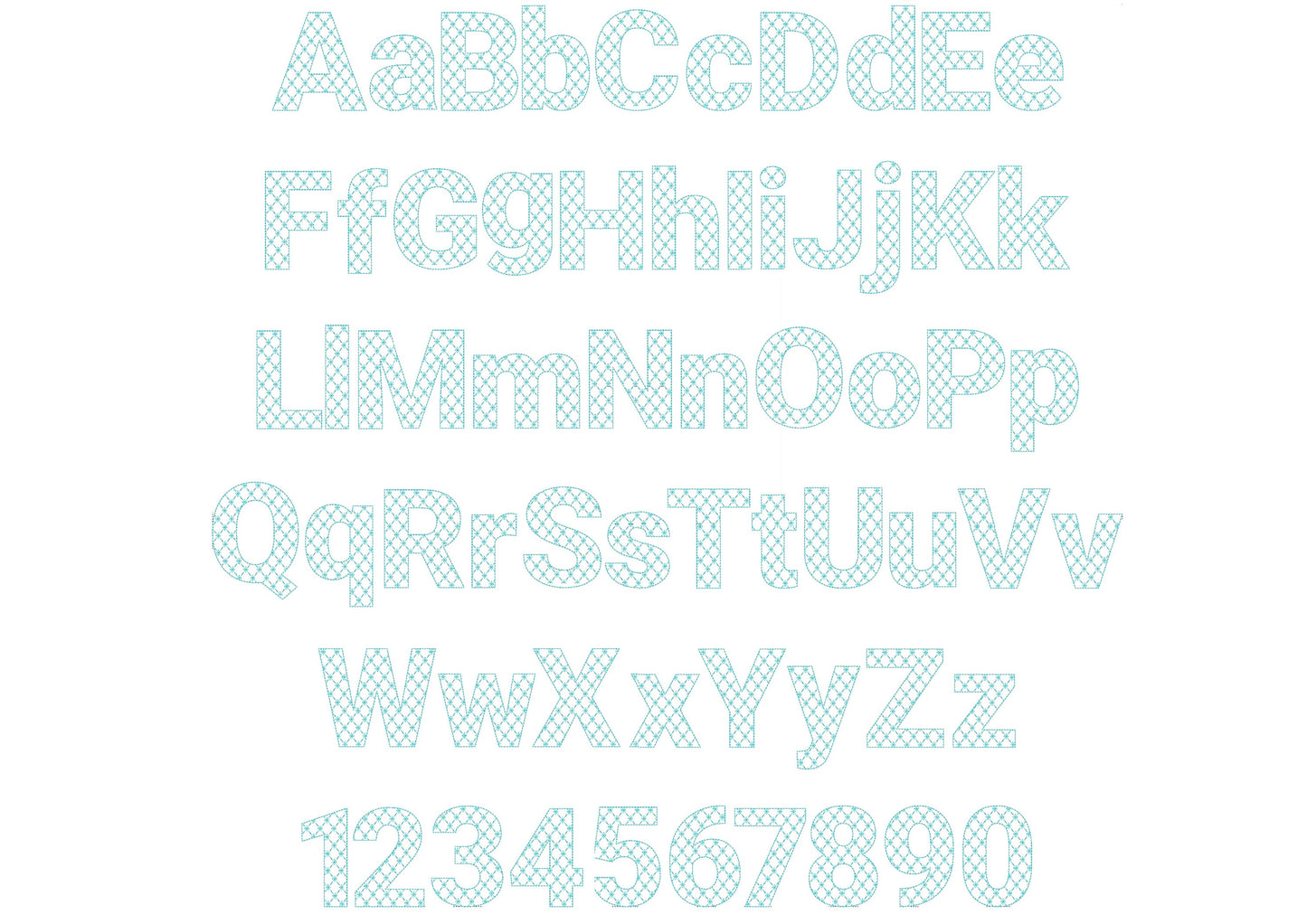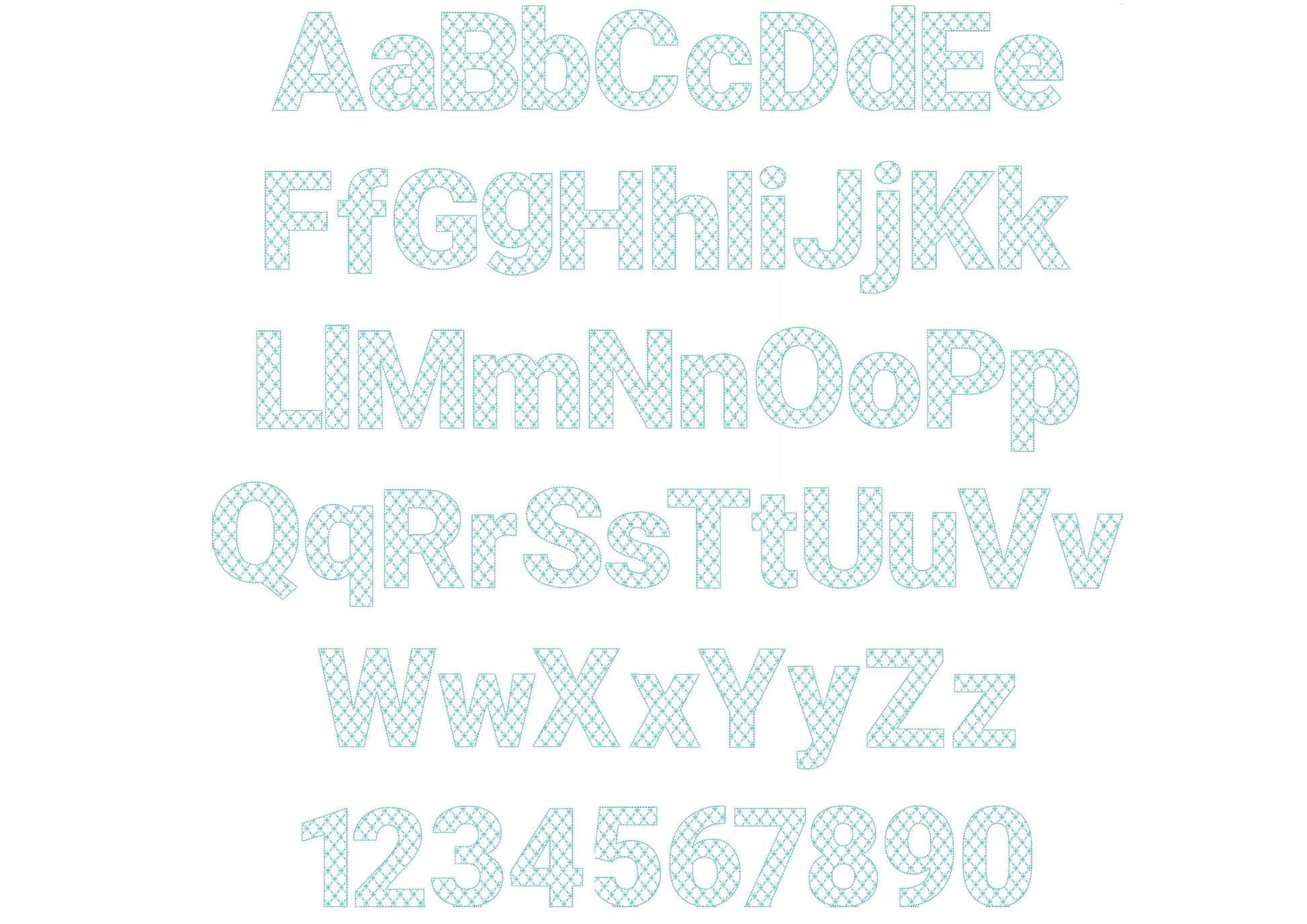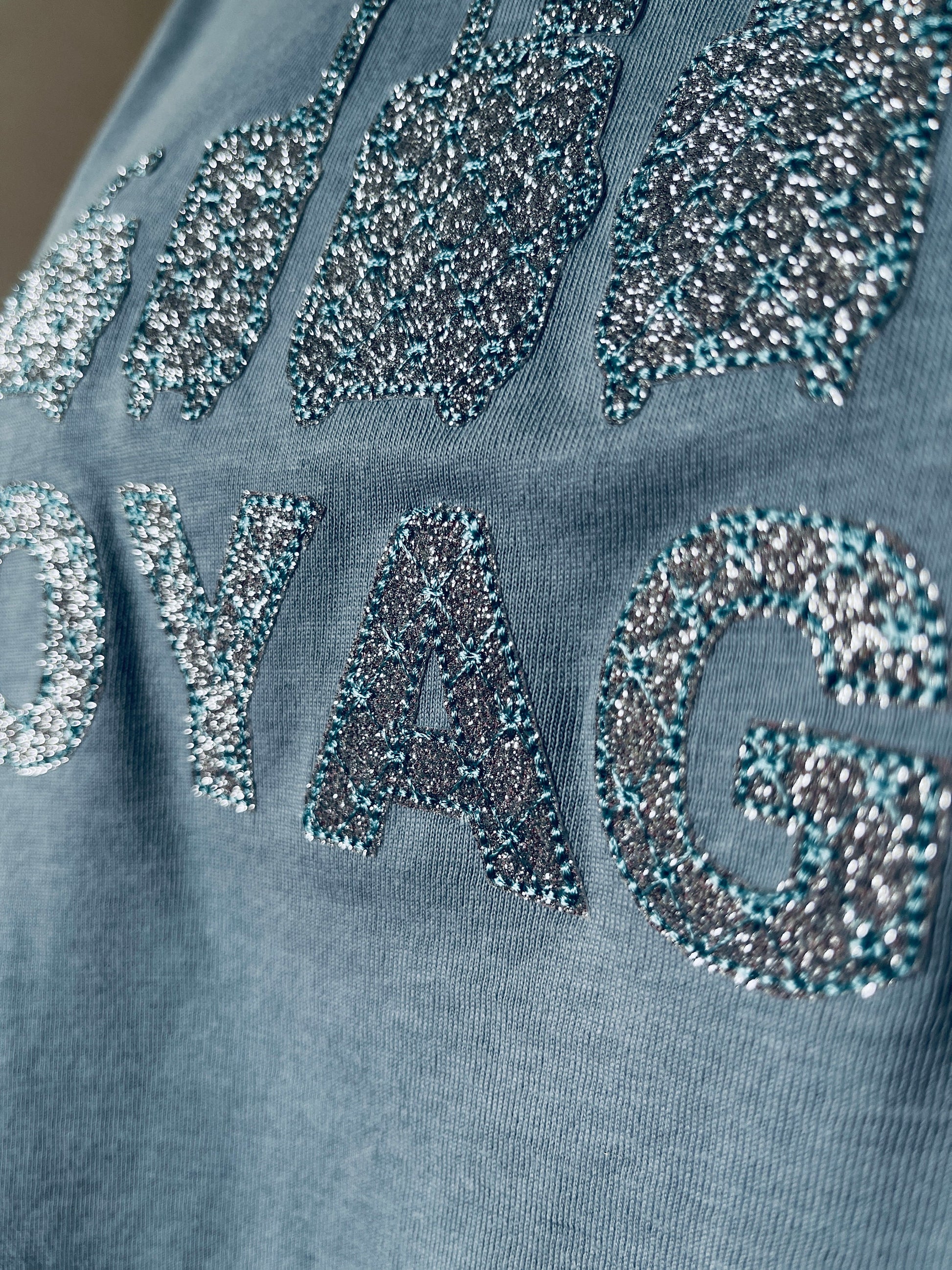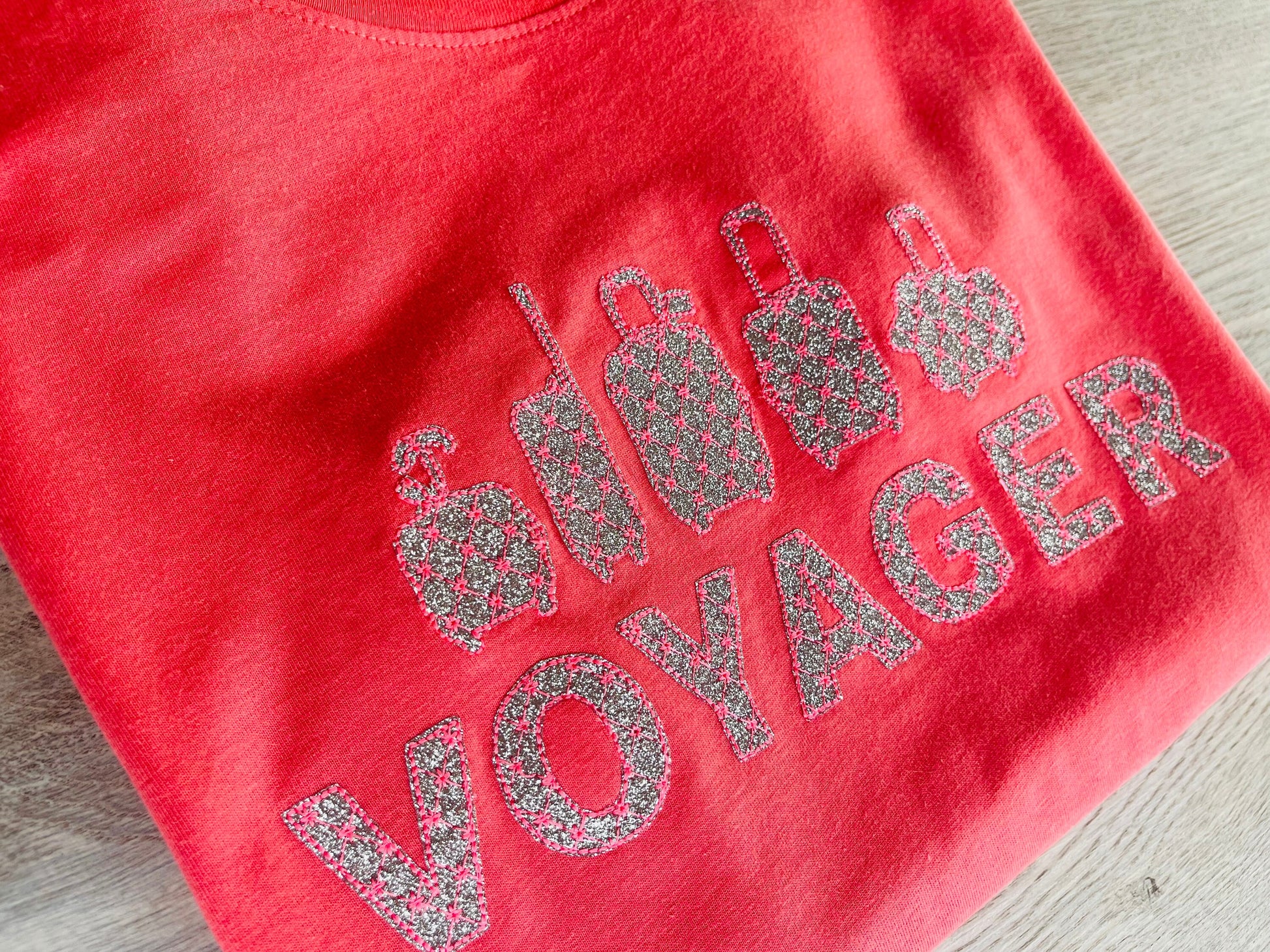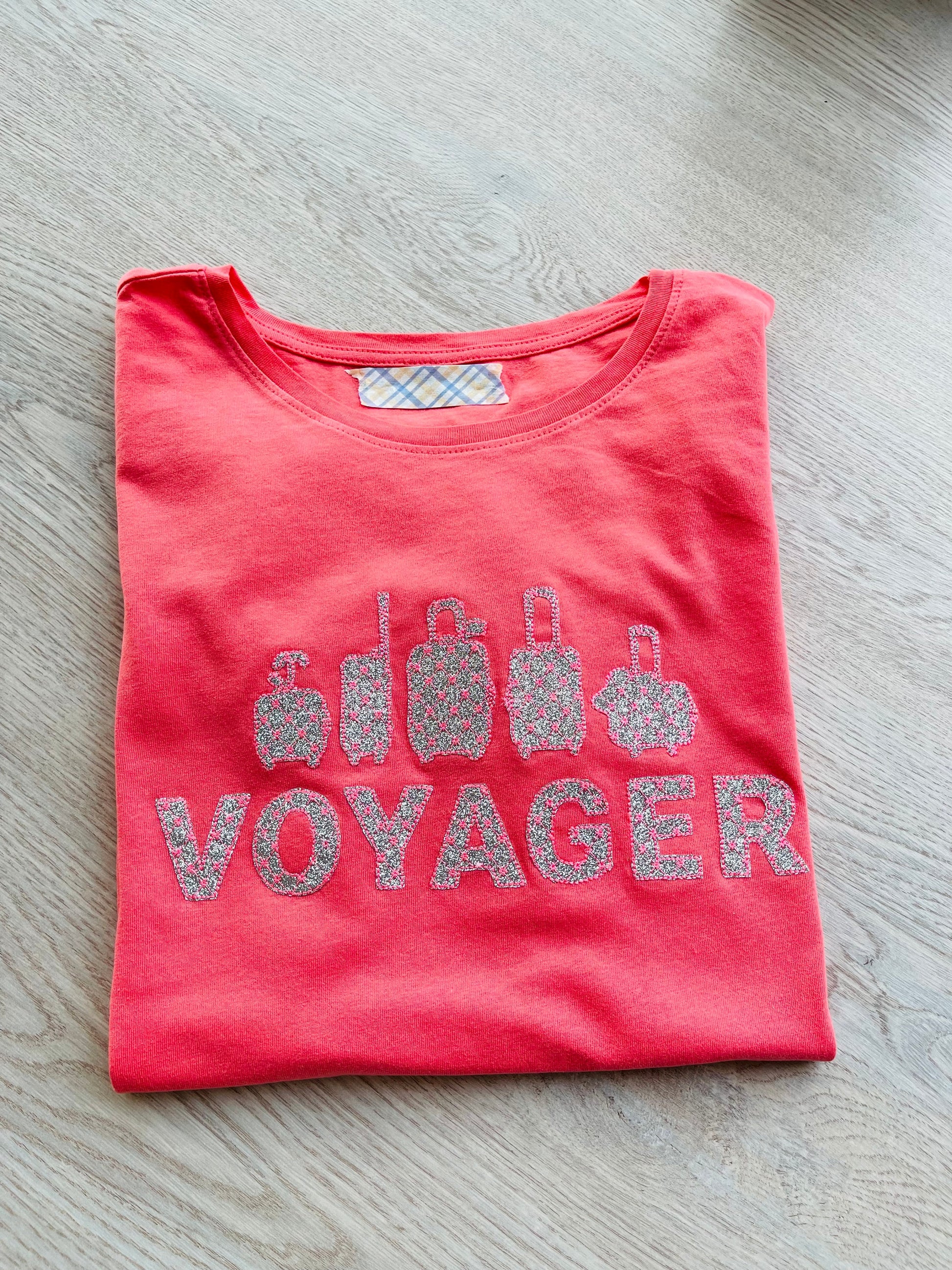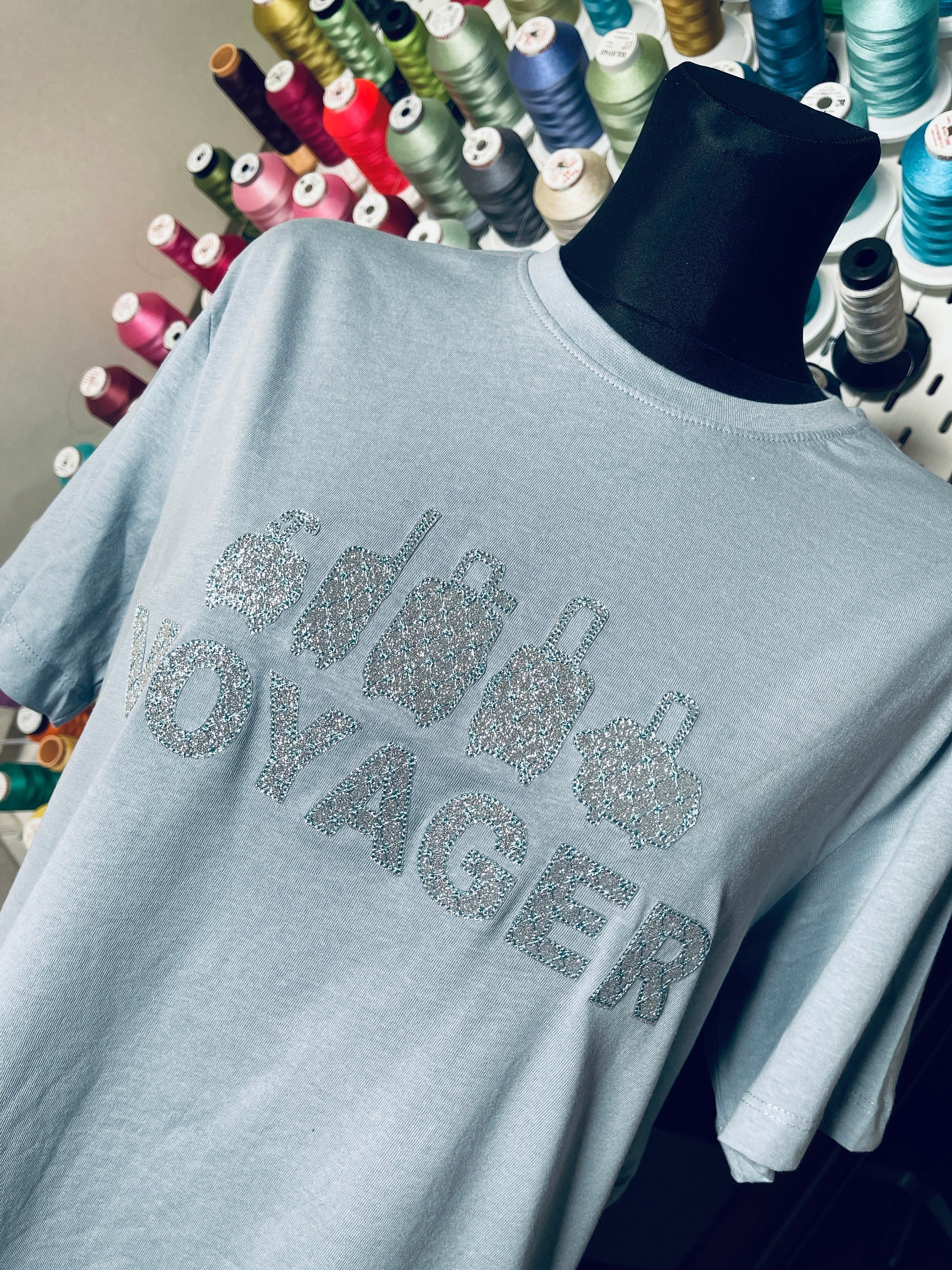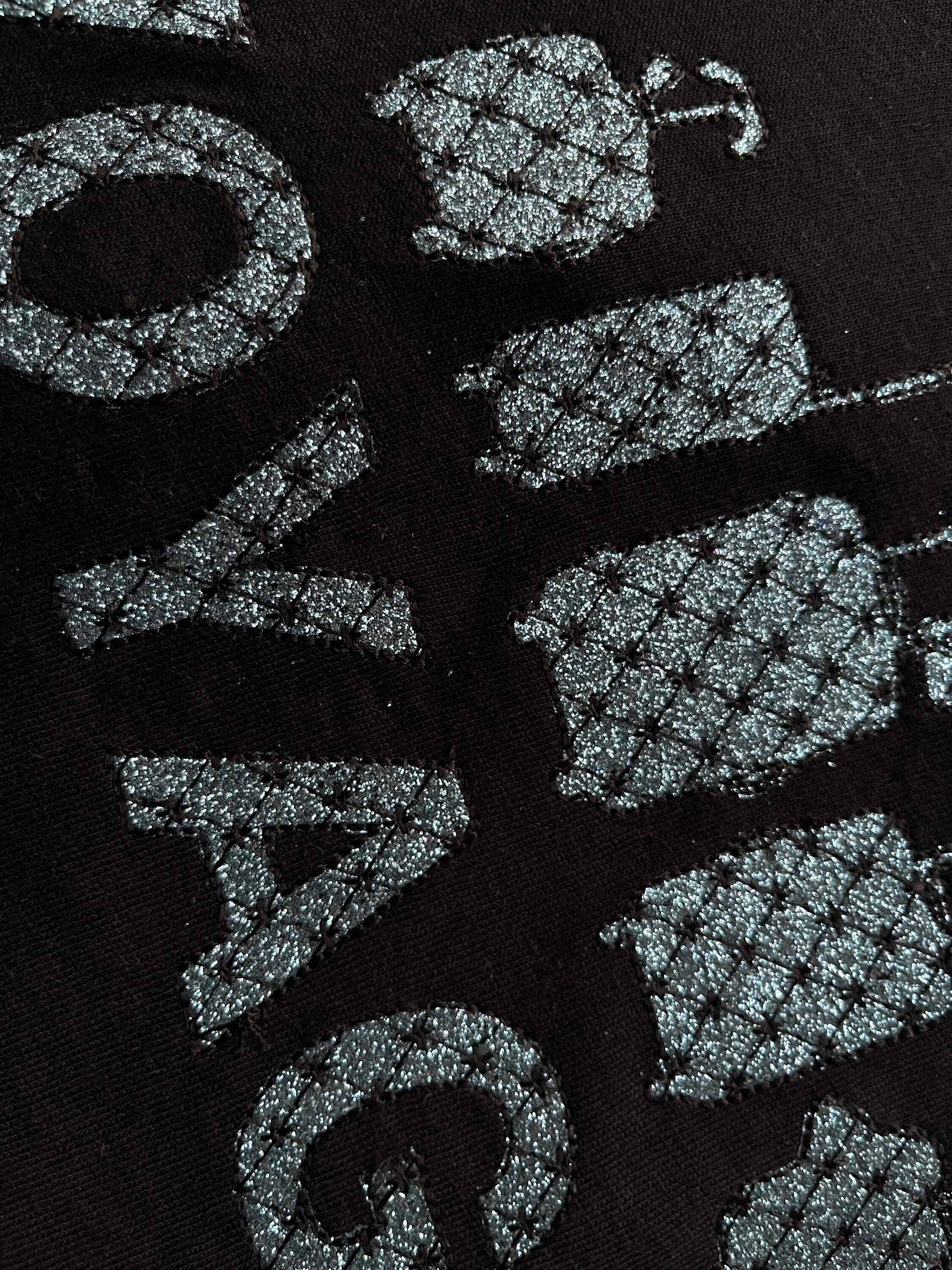
Brand Style Glitter HTV Vinyl Font
Or click to open the linkA simple applique font made for glitter vinyl. Quick and sparkly for names and monograms on shirts, bags, caps and luggage tags.
Uppercase and lowercase letters, numbers 0 to 9 and punctuation. Eight sizes: 1, 1.2, 1.5, 1.8, 2.4, 3, 4 and 5 inches.
- Glitter vinyl applique font
- Uppercase, lowercase, numbers 0 to 9, punctuation
- 8 sizes, 1 to 5 in